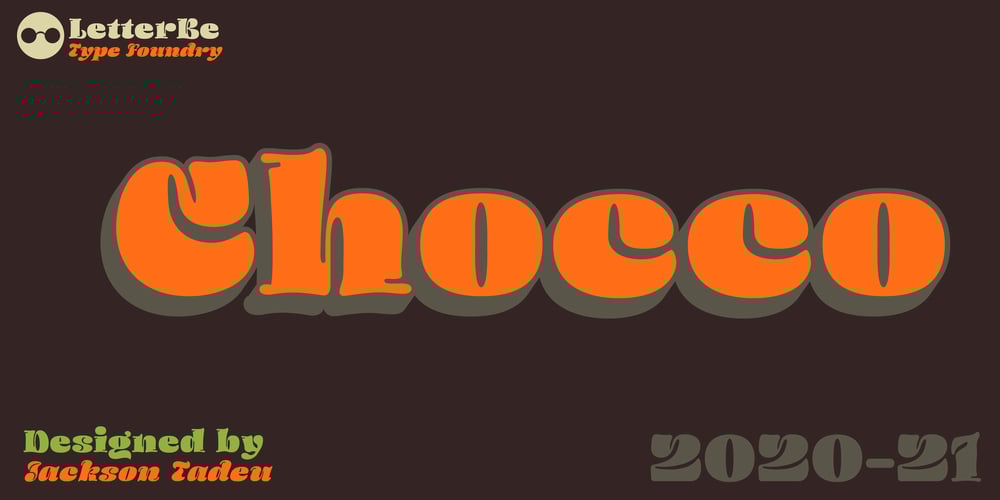
Chocco
Chocco font
Chocco Font Family was designed by Jackson Amaral and published by Oliveira 37. Chocco contains 6 styles and family package options. Chocco is a chunky and a fun display typeface. With an extra heavy but friendly personality, Chocco works well for posters, food packaging, children’s products and books, or any communications which needs to be friendly, fun, casual or loud.